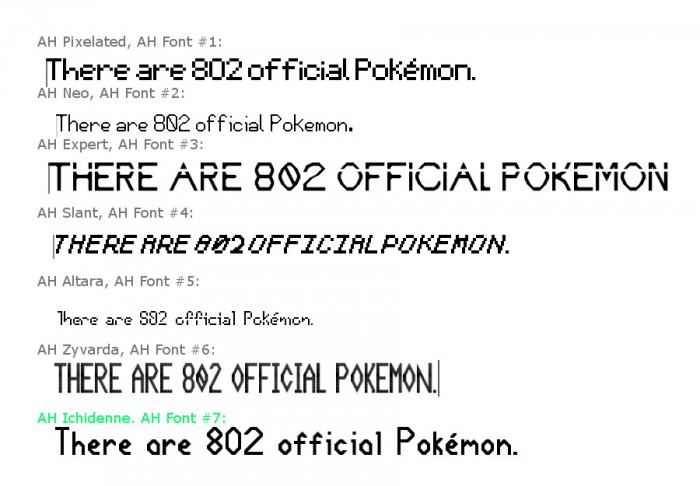
• AH Ichidenne, font #7 of mine and arguably the best yet, despite being made in 7 days!
Note: There's actually only 172 characters of use here. The 173rd is the micro symbol, as in micrometer (µm). The 174th is Extended Latin's Gamma (I forgot which Extended Latin), and you can see it between the y with diaresis and the elipsis when viewing all characters. The 175th is the infinity sign. Why? Because I can. The 176th is the final ? character and is Unicode character FFFD.
Other Note: Sorry for the terrible uppercase More Latin characters. It's atrocious. My favorites of those are the O with tilde and A and O with circumflex.
What is Unicode character FFFD even used for anyway?
FFFD is used to indicate nonexistent characters in fonts, i.e., when a font doesn't have the character you are intending to use. It's typically a black diamond or box with a white question mark.
A comparison of all my fonts to date. (This is at twice the regular pixel size.) Note: AH Neo, AH Expert, AH Slant and AH Zyvarda do not have an e with an acute accent mark, and AH Expert does not have a period.